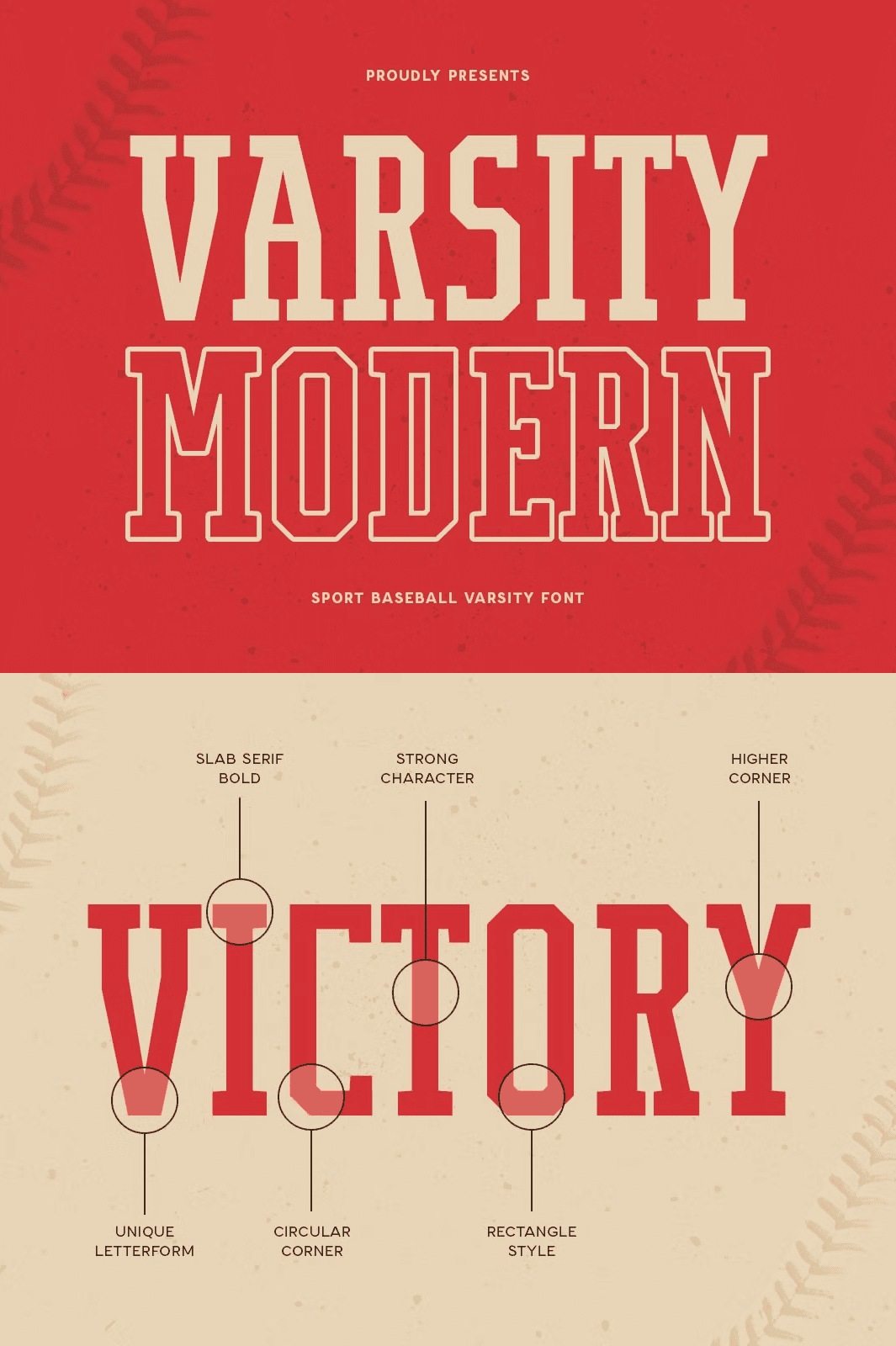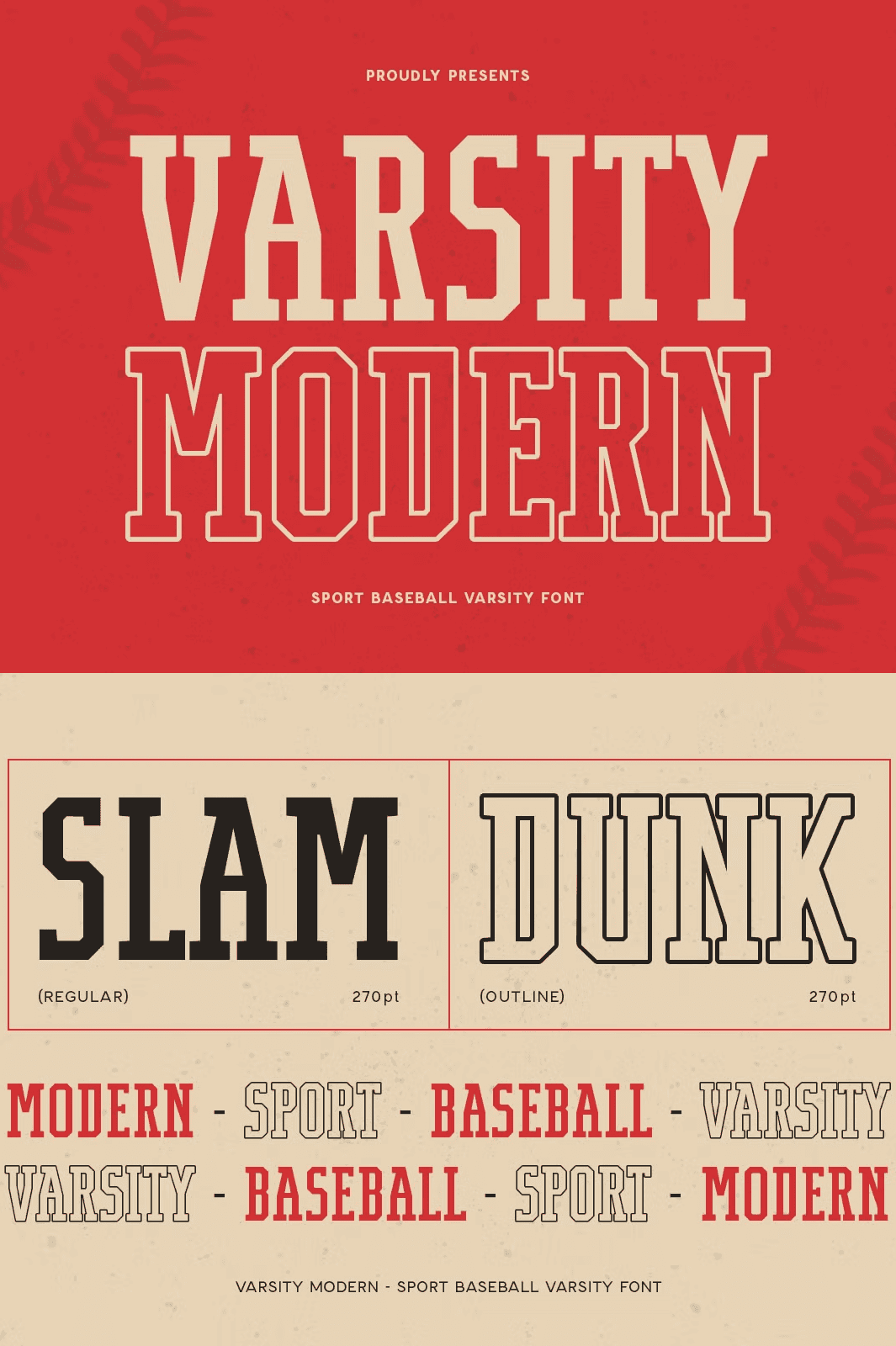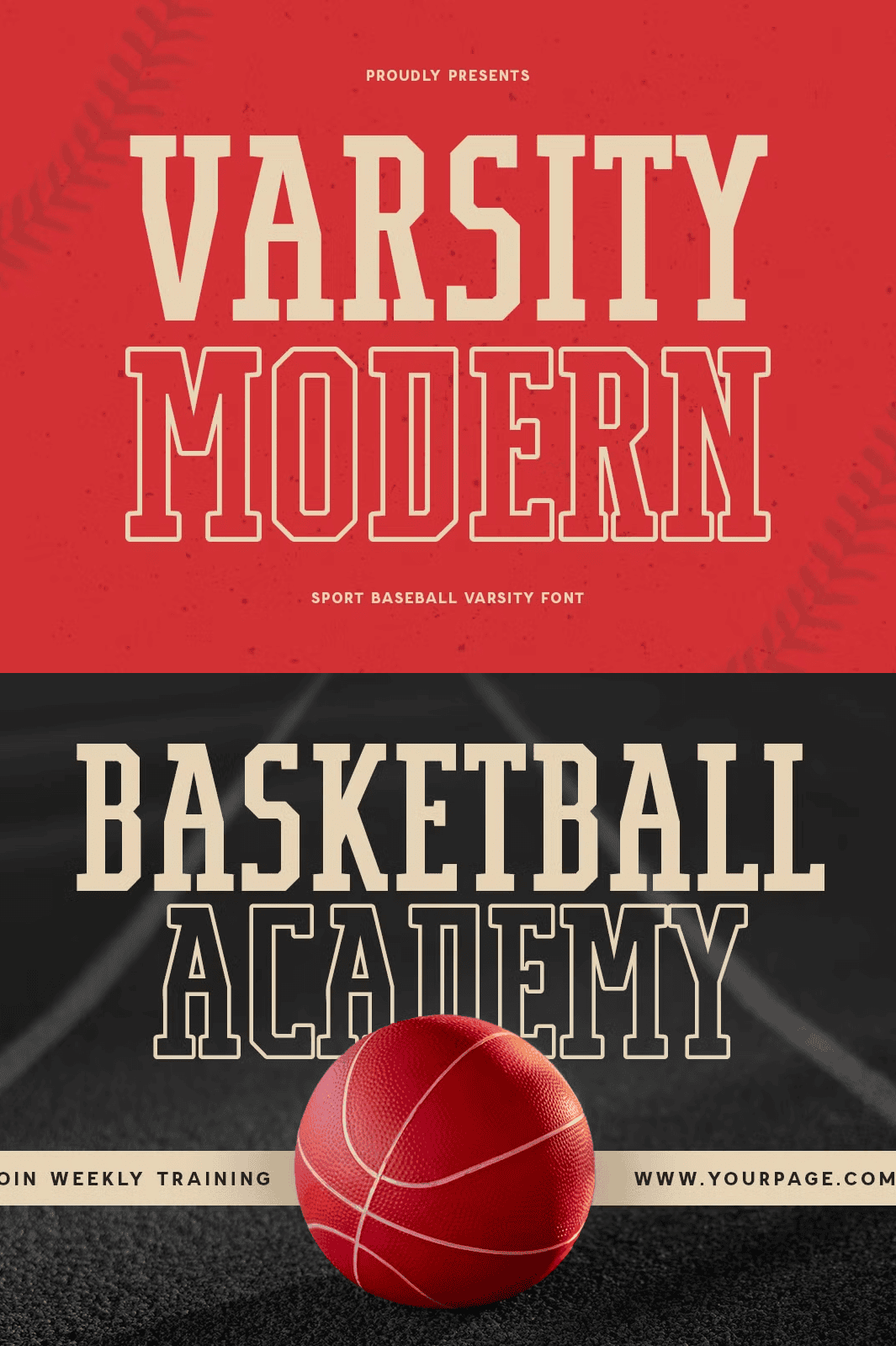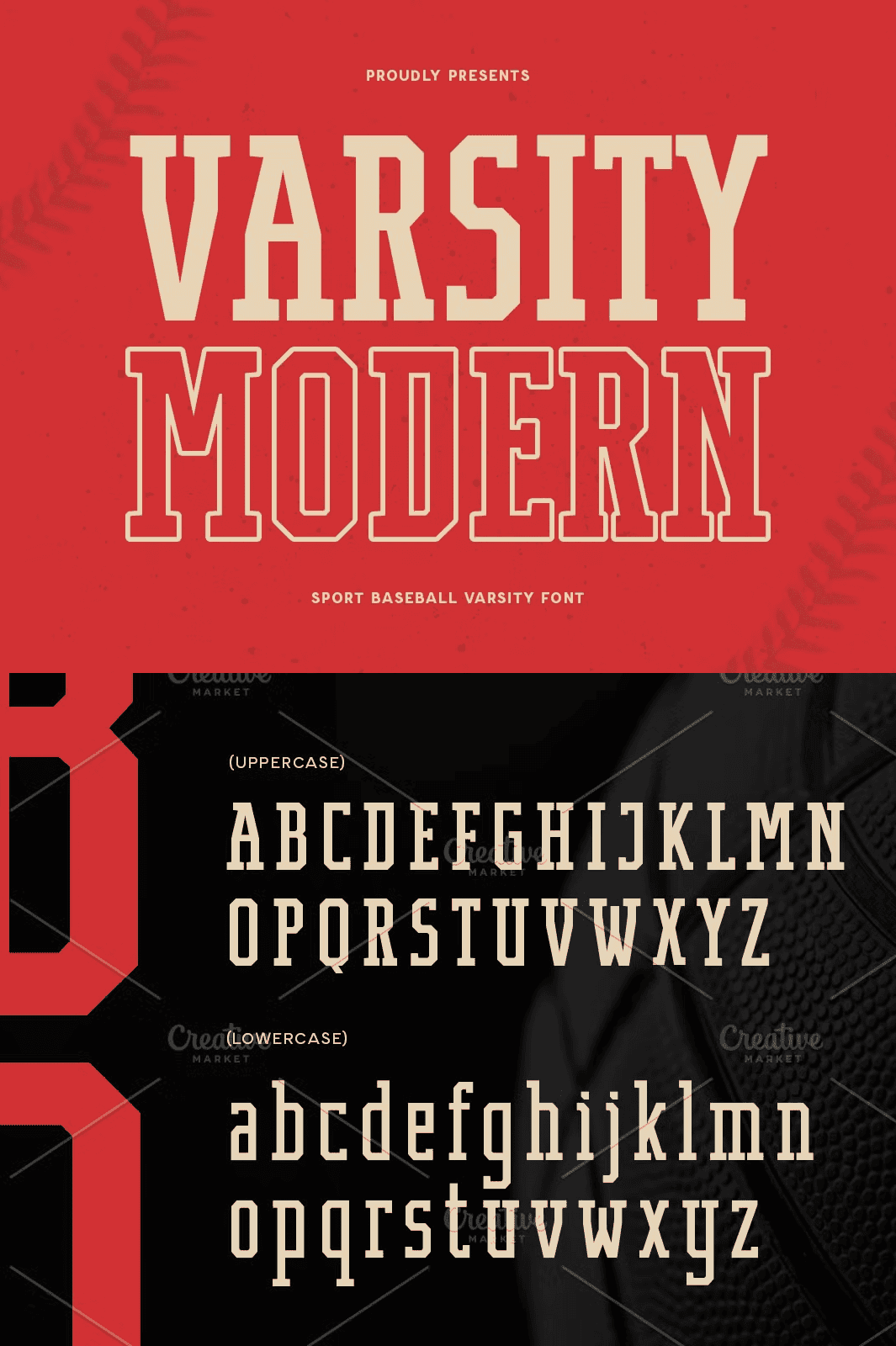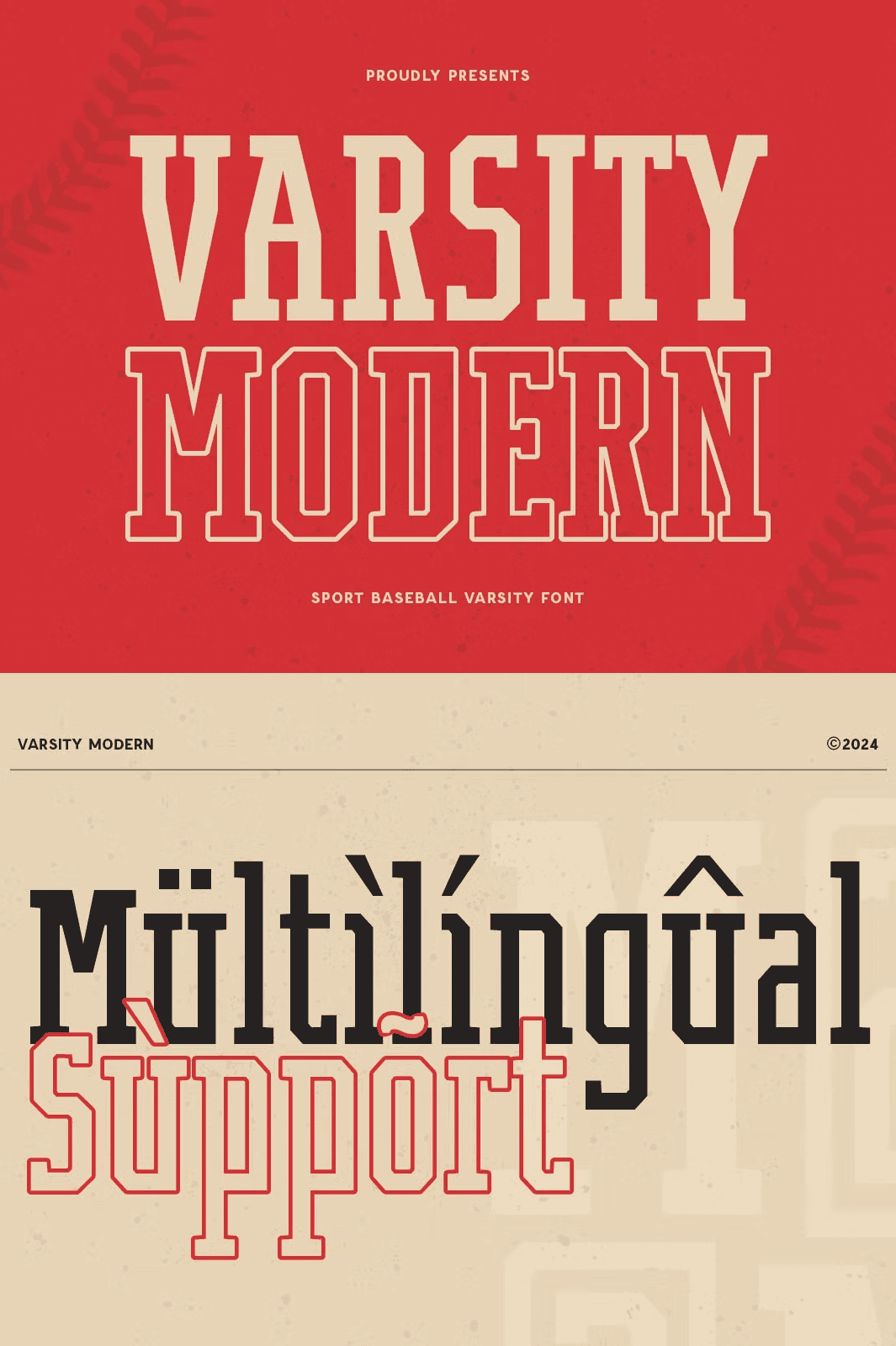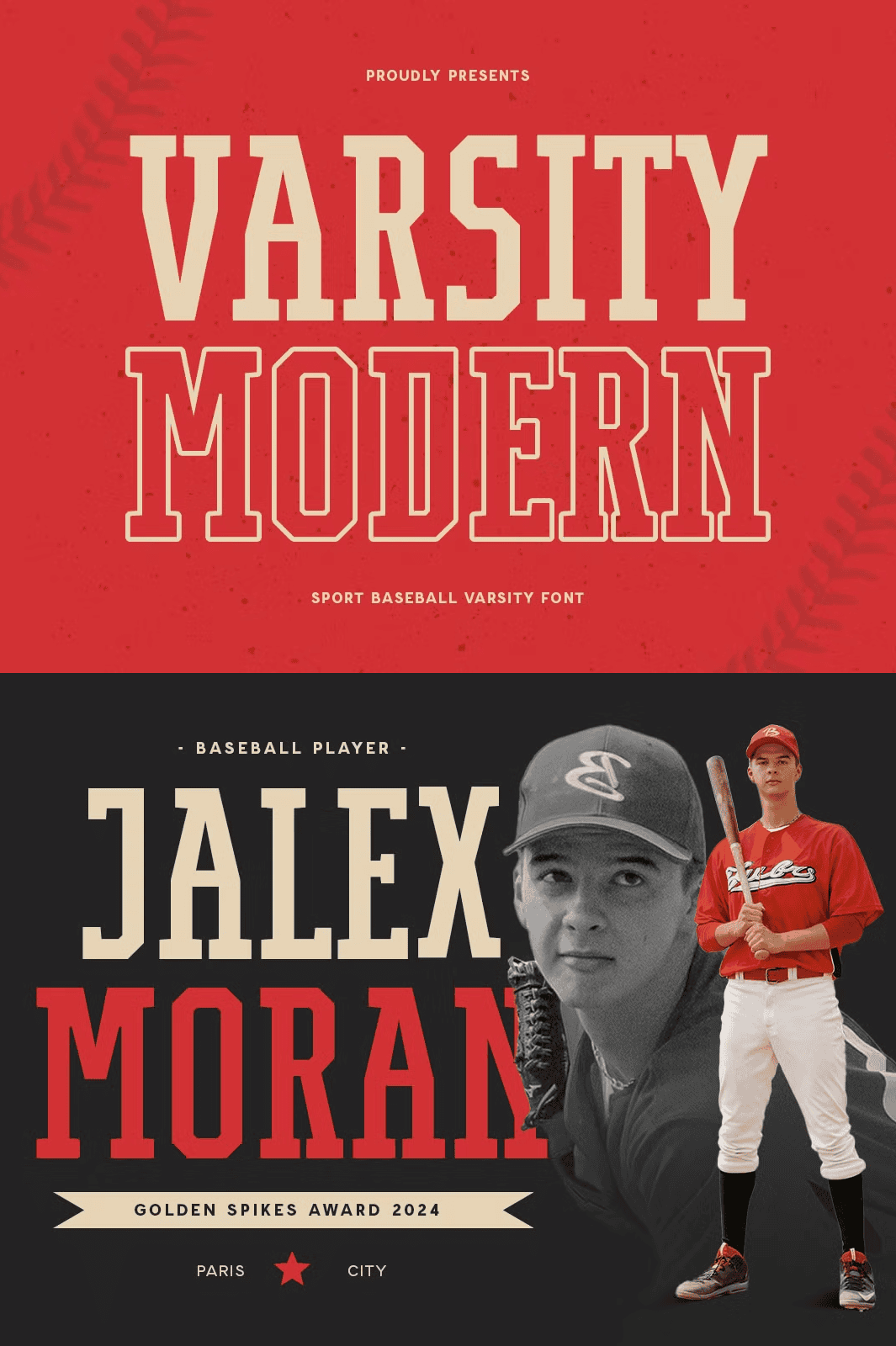
Varsity Modern – Sport Baseball Font
Elevate Your Designs with Bold, Athletic Energy
Unleash the raw power and electric energy of competitive sports with **Varsity Modern**, a high-impact font that redefines athletic typography. Inspired by the iconic boldness of varsity lettering, this typeface blends the timeless heritage of baseball, college football, and collegiate sports with a sharp, modern edge. Every character pulses with motion, precision, and confidence, transforming static text into a dynamic visual statement. Whether you’re designing a championship logo, a fanwear collection, or an event poster, Varsity Modern delivers the visual horsepower your project demands.
Craft Unforgettable Team Identities with Authority
Forge dominant brand identities that command attention and inspire loyalty. Varsity Modern’s robust, slab-like strokes and aggressive letterforms establish instant credibility and strength. Use it to design powerful team logos, official uniforms, player jerseys, and championship banners. The font’s inherent boldness ensures your team’s name and insignia stand out in crowded stadiums, on social media, and in digital advertising. It’s more than a font—it’s a badge of honor for athletic excellence.
Dominate Sports Merchandising with High-Impact Typography
Turn every piece of merchandise into a statement of passion and pride. From caps and jerseys to posters, mugs, and phone cases, Varsity Modern ensures your designs resonate with fans and players alike. Its clean, legible structure at various sizes makes it ideal for both close-up details and large-scale printing. The modern twist on traditional varsity styling ensures your products feel current, energetic, and ready for today’s competitive market.
Bring Athletic Events to Life Through Visual Storytelling
Transform event promotion into a full-sensory experience. Use Varsity Modern to design eye-grabbing posters, flyers, digital banners, and digital animations for tournaments, tryouts, and championship games. The font’s dynamic nature captures the thrill of the game, drawing audiences in before they even read the first word. Whether promoting a local league or a national championship, your event will radiate momentum and excitement.
Empower Your Creative Workflow with Complete Character Support
Design with global confidence. Varsity Modern includes extensive multilingual character sets, offering full support for:
– Latin-1 and Latin-2 character sets (French, German, Spanish, Italian, Portuguese)
– Accented characters and diacritical marks
– Punctuation, numerals, currency symbols, and special glyphs
– True lowercase and uppercase forms with consistent spacing
Create inclusive designs that speak to diverse audiences without sacrificing aesthetic quality.
Unlock Powerful Design Applications
Transform your creative process by applying Varsity Modern to a wide variety of high-impact projects:
– Team branding and logo design for sports clubs and academies
– Athletic apparel and merchandise for fan and pro markets
– Event posters, digital ads, and social media campaigns
– Yearbooks, school projects, and varsity-style commemorative materials
– Web headers, landing pages, and interactive displays
Let the energy of the game drive your design vision.